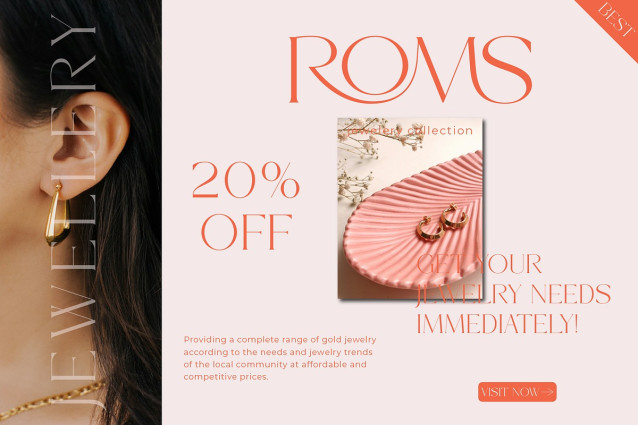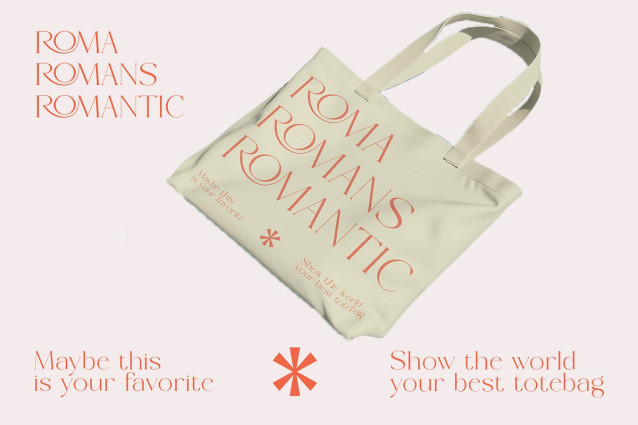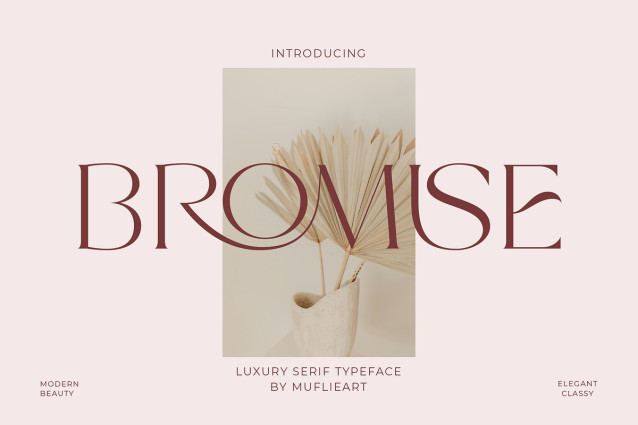
Bromise Font
Bromise Font, an elegant, beautiful and modern Serif typeface. With a modern and minimalist look, Bromise brings a classy, ​​classy and clean look to your projects such as websites, modern logos, brand identities, social media quotes, wedding stationery, magazines and more!
Bromise features unique and classy uppercase letters from A to Z, and comes with unique alternate fonts, making Bromise a beautiful, customizable font for many different projects and jobs you want.
Bromise is perfect for: logos, branding, wedding invitations, business cards, greeting cards, posters, magazines, social media, calendar prints and websites.